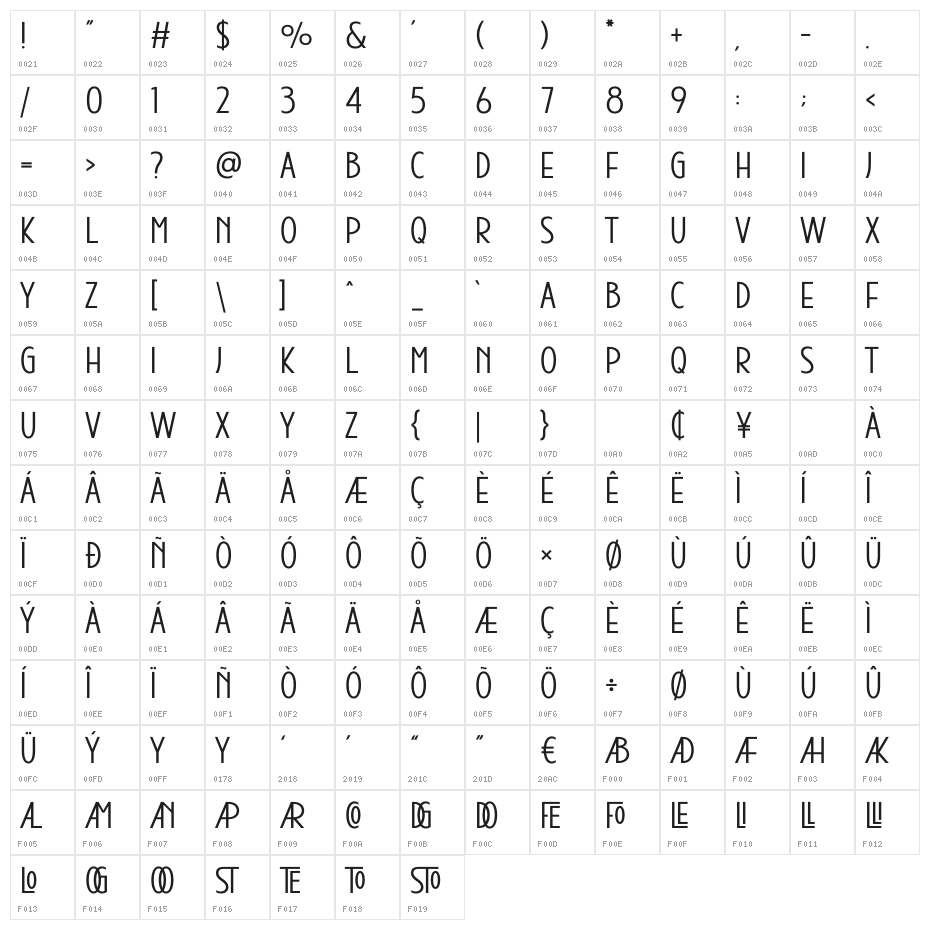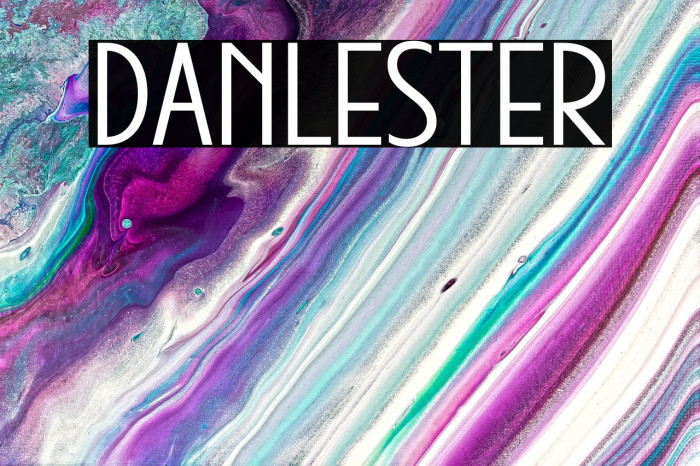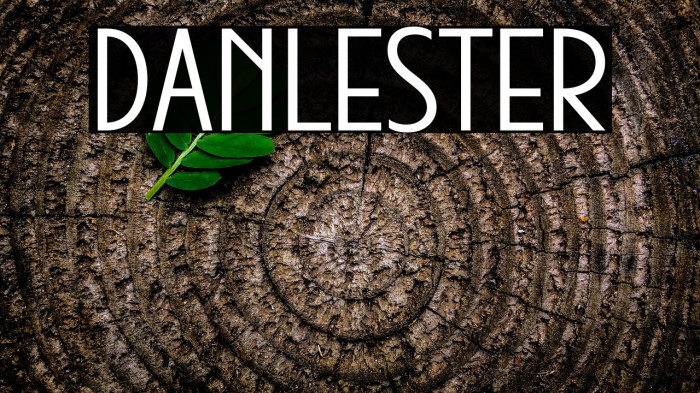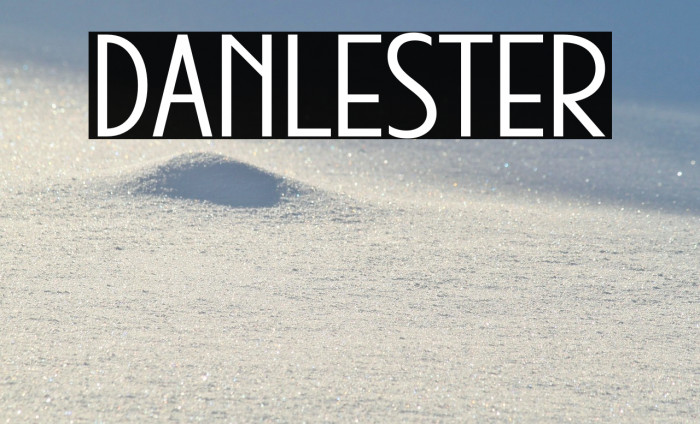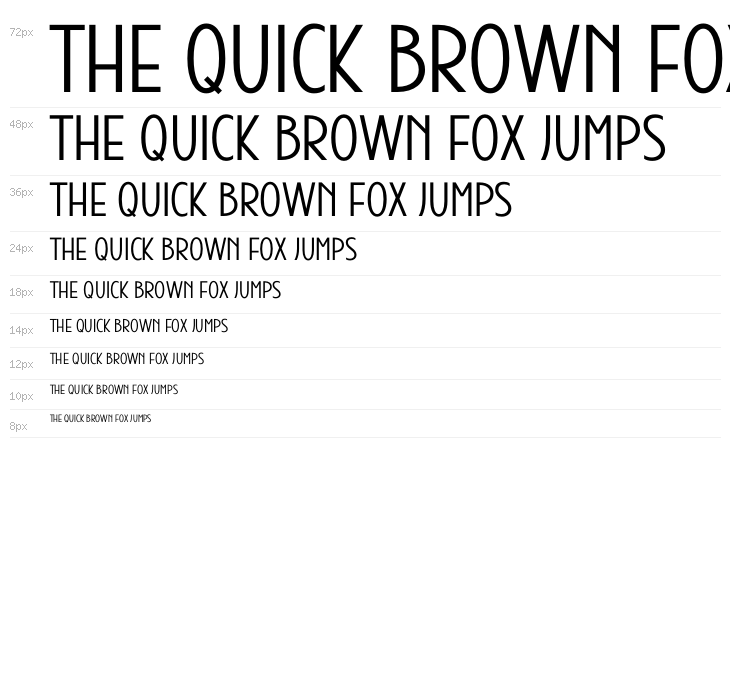
DANLESTER Font
DANLESTER Description
This font features a clean and modern sans-serif design, characterized by its tall and narrow letterforms. The strokes are consistent in width, providing a uniform appearance across all characters. The uppercase and lowercase letters maintain a harmonious balance, with slightly rounded edges that soften the overall look. The numerals are clear and legible, making them suitable for various applications. Special characters are well-integrated, maintaining the font's sleek aesthetic. The overall design is minimalist, making it versatile for both digital and print media.
| Categories | Sans Serif |
| Width | Condensed |
| Use Case | Headlines, Body text, Logos |
| Proposed Projects | Ideal for branding, editorial design, web design, and advertising materials. |